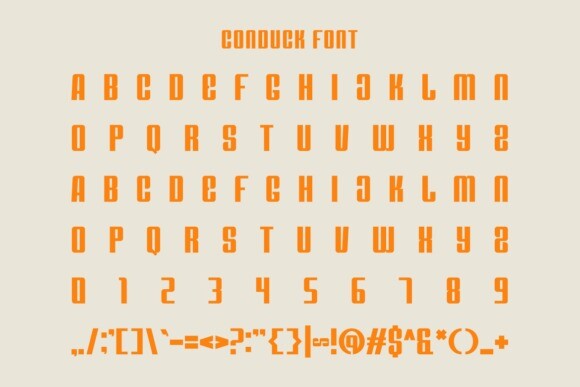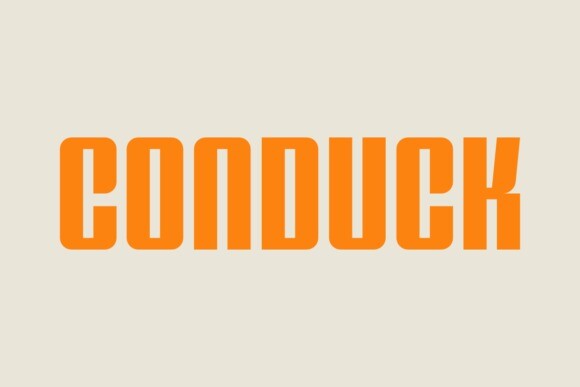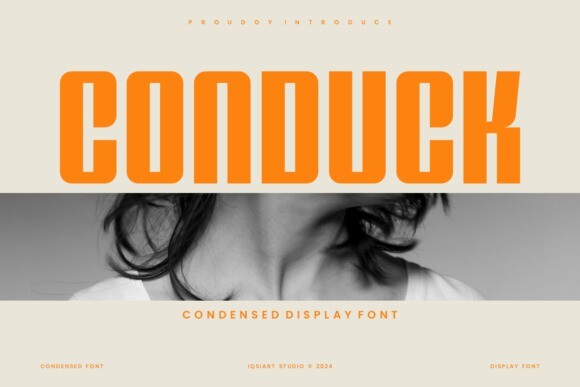
Conduck Font
Designer: IqsiartStudio
Conduck Font is an incredibly unique condensed display font. Masterfully designed to become a true favorite, this font has the potential to bring each of your creative ideas to the highest level!